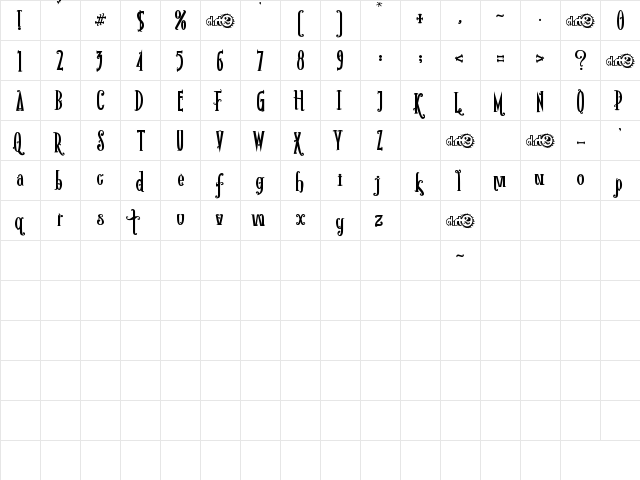
Rio Frescata Demo Regular
Design Context for Rio Frescata Demo Typeface
Rio Frescata Demo is a composed and adaptable typeface that performs quietly and consistently across a wide range of design contexts.
Pro Tip: Use Rio Frescata Demo in both headline and body roles to test its range before committing to a single application.